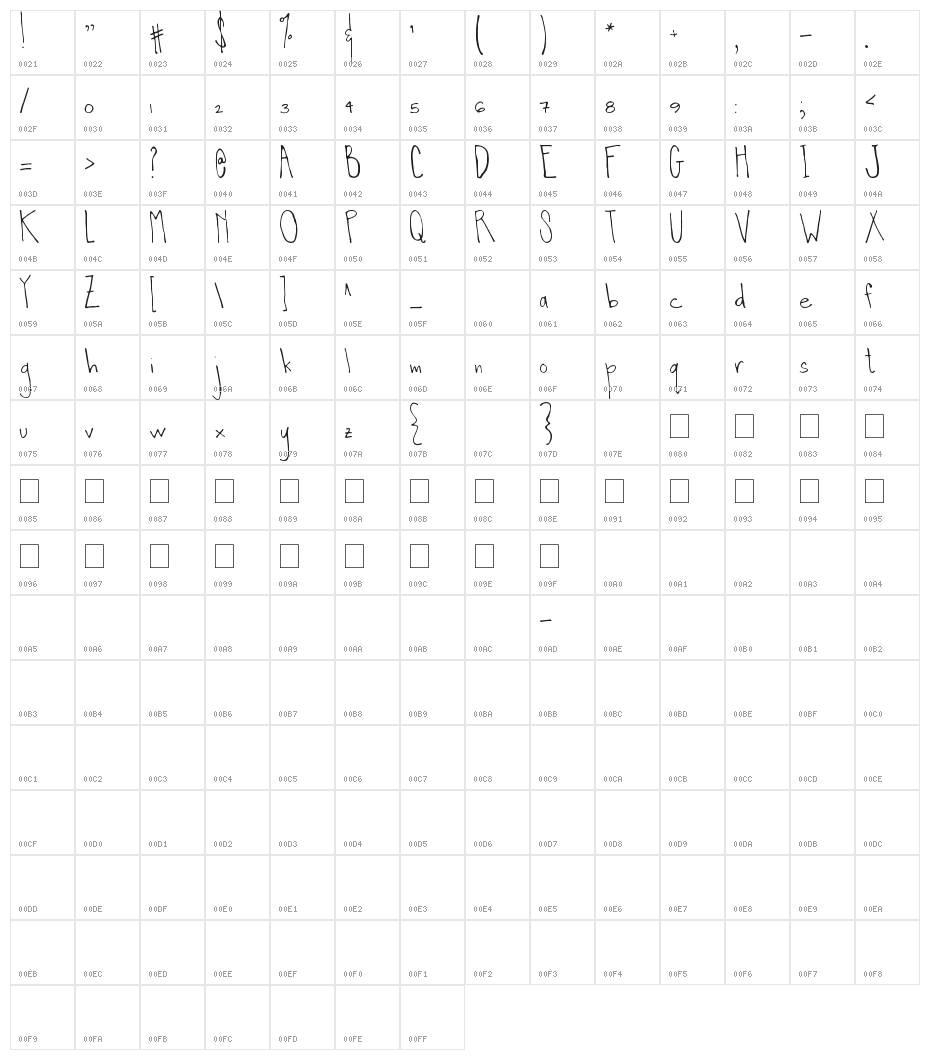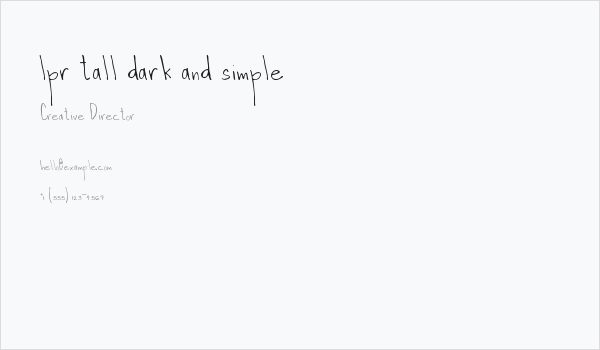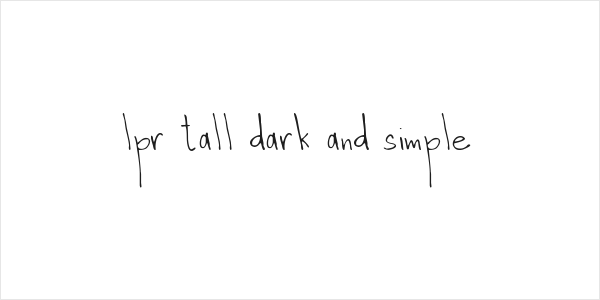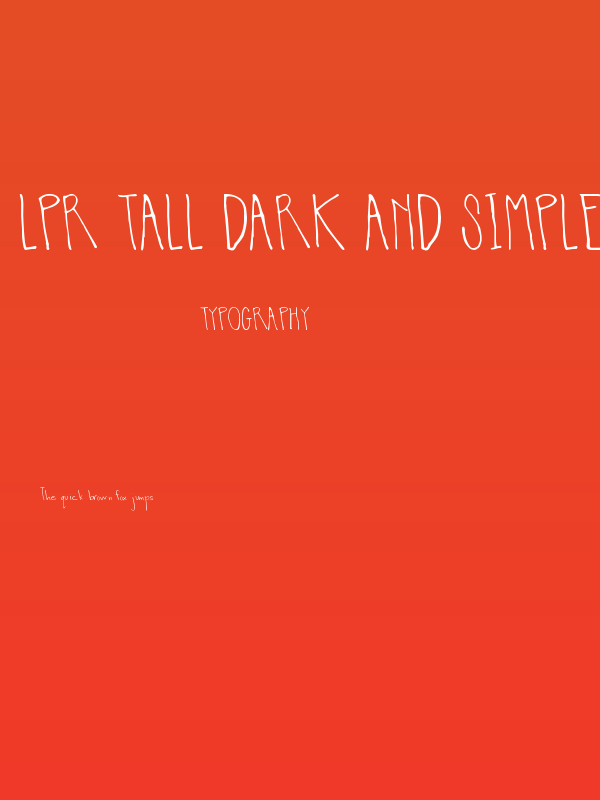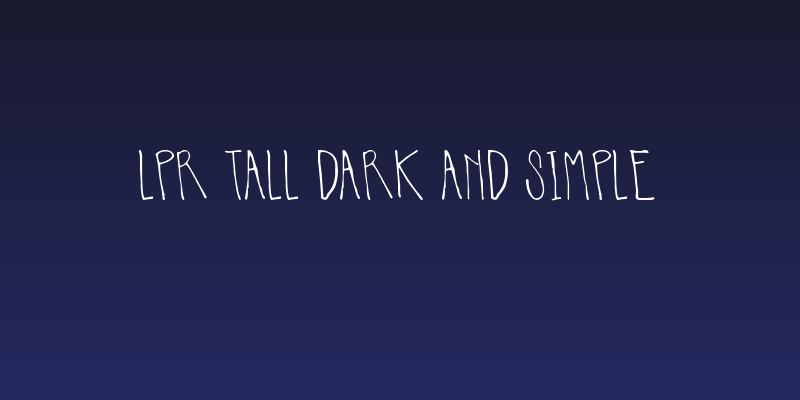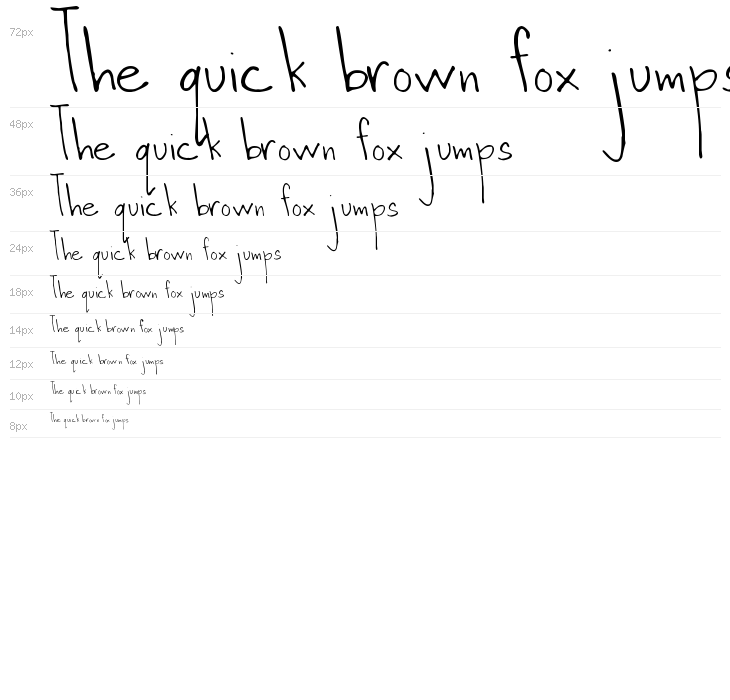
lpr tall dark and simple Font
lpr tall dark and simple Description
This font features a tall and slender design with a hand-drawn aesthetic, giving it a casual and approachable feel. The uppercase letters are elongated with a slight irregularity in line thickness, adding to its whimsical charm. Lowercase letters maintain the same playful style, with some characters like 'g' and 'y' having distinctive loops. Numbers are consistent with the overall style, maintaining the same quirky and informal look. Special characters are creatively designed, fitting seamlessly with the rest of the font's playful and artistic vibe.
| Use Case | Headlines, Informal Text, Creative Projects |
| Proposed Projects | Ideal for creative projects such as children's books, greeting cards, and playful branding. |